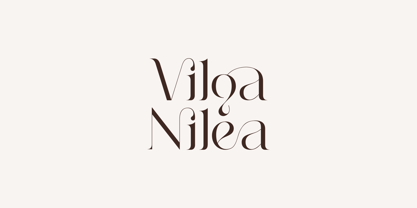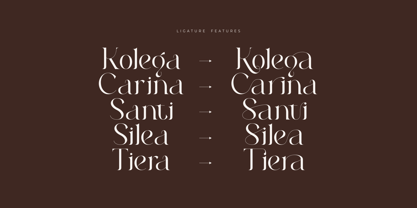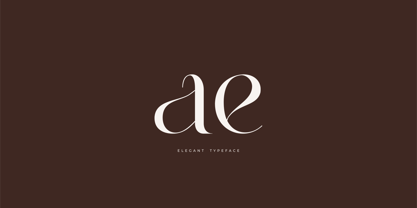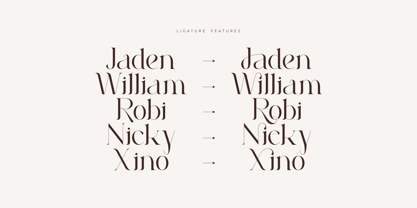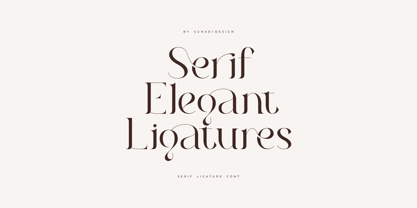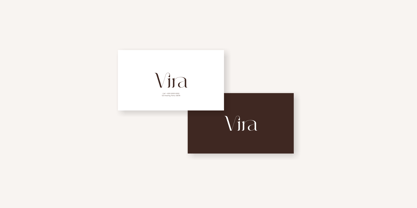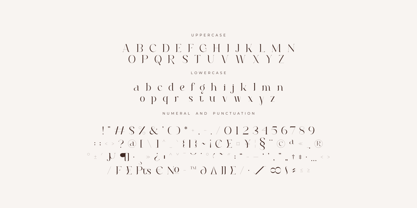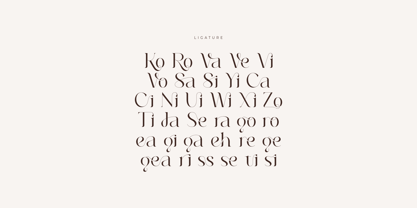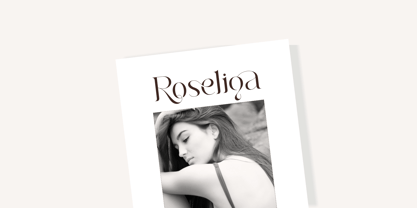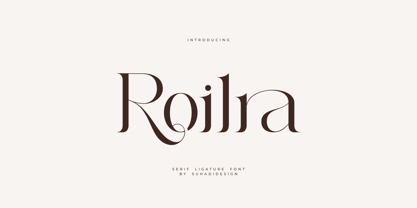
Roilra
by suhadidesign
The Roilra Font Family was designed by ahmad suhadi and published by suhadidesign. Roilra contains 1 styles.
Roilra - Serif Ligature Font
The latest stylish modern font has arrived, a font that many women and men are looking for. It's the Roilra font. Roilra is a classy and contemporary serif font. With its elegant design and stylish ligatures, this font has become a favorite on the market. We've kept this font looking elegant, classy, ​​and stylish. Roilra is the perfect choice for brands, cosmetics, boutiques, beauty, magazines, designs, books, publications, branding, brand names, business cards, social media, classy designs, newspapers, branding, beauty, and other projects. Roilra is here to elevate the quality of your designs.
Designers: ahmad suhadi
Publisher: suhadidesign
Foundry: suhadidesign
Design Owner: suhadidesign